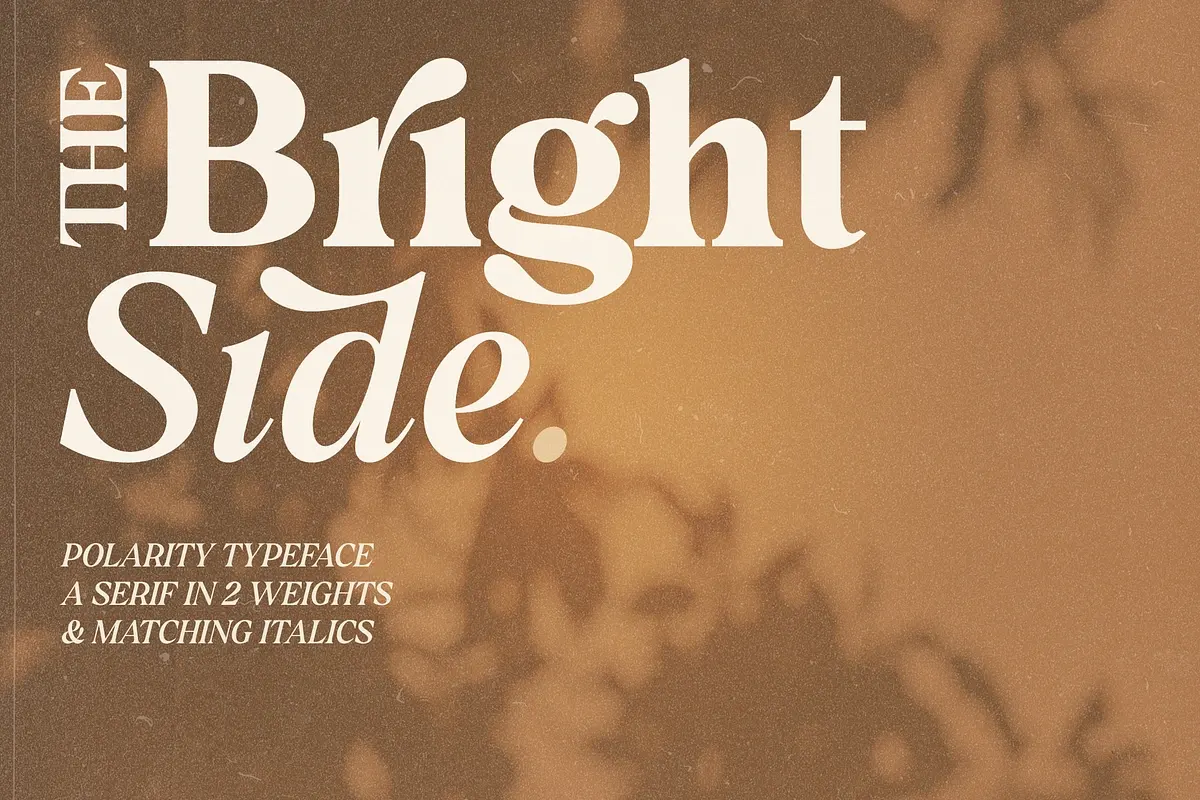
Polarity - Vintage Serif Font Family Free Download
Polarity - Vintage Serif Font Family Free Download is a timeless typeface collection that blends classic serif elegance with vintage charm. Perfect for logos, editorial layouts, packaging, and retro-themed branding, Polarity brings a refined yet nostalgic touch to any design. Please note that you must purchase this font for commercial use, but it is available as a free download for testing purposes. Add a sense of heritage and sophistication to your creative work with Polarity - Vintage Serif Font Family Free Download, and explore the versatility of beautifully crafted vintage serifs.